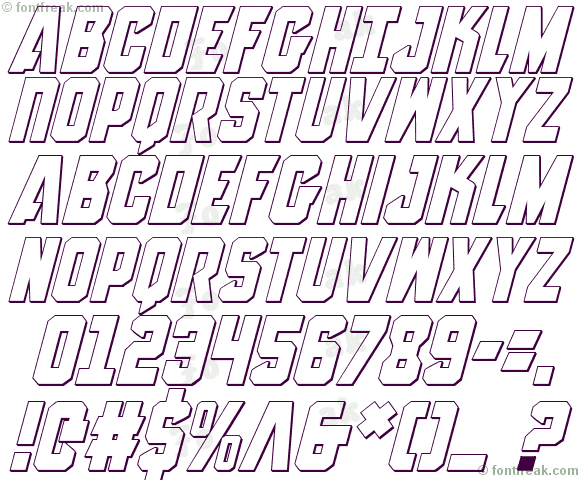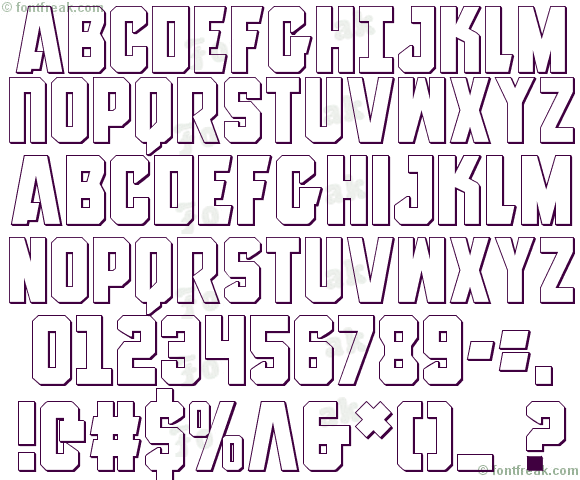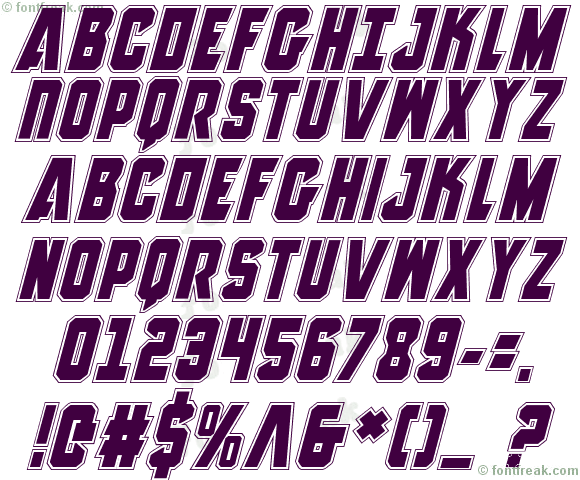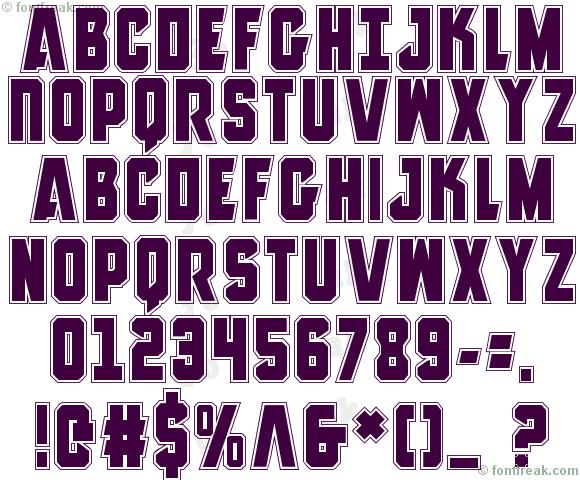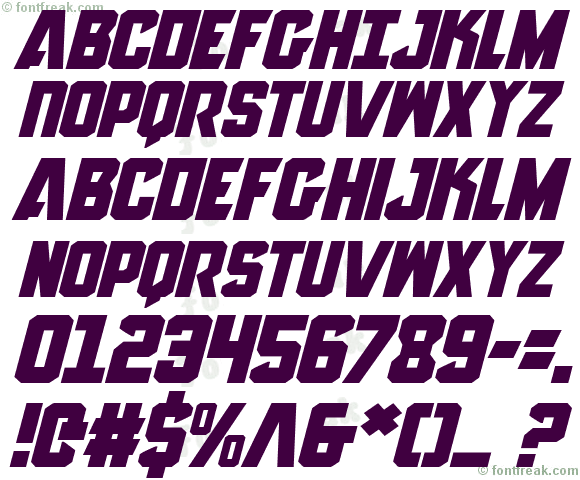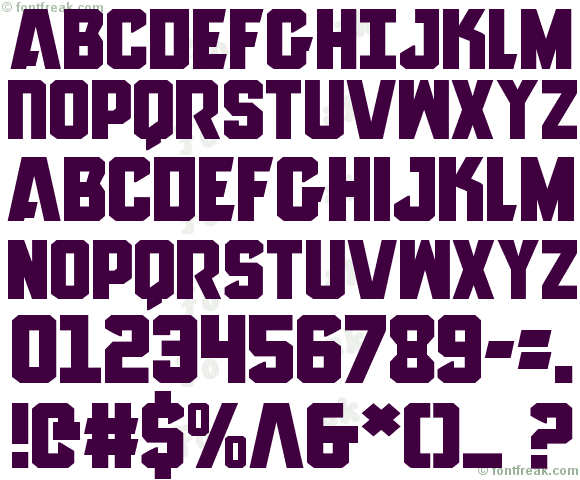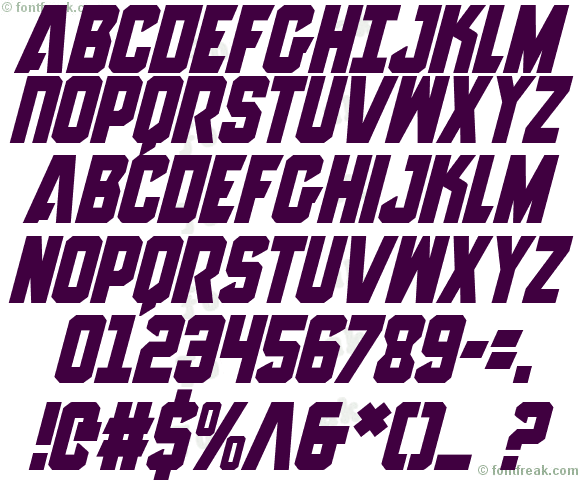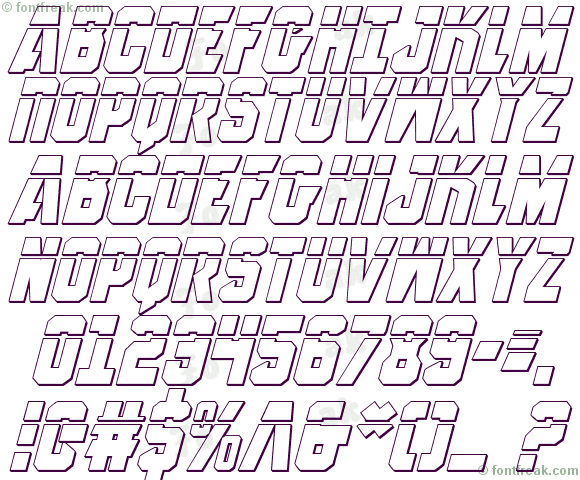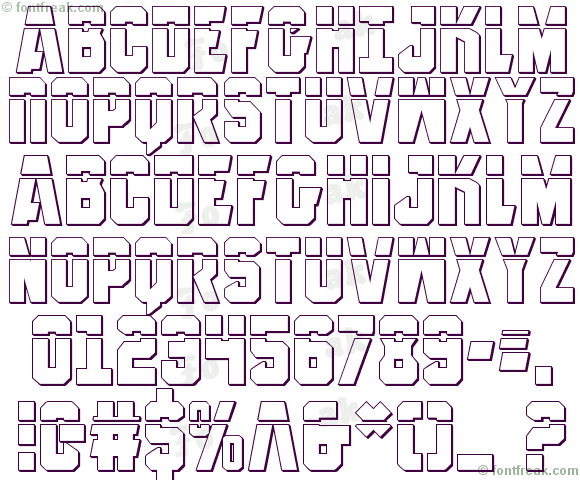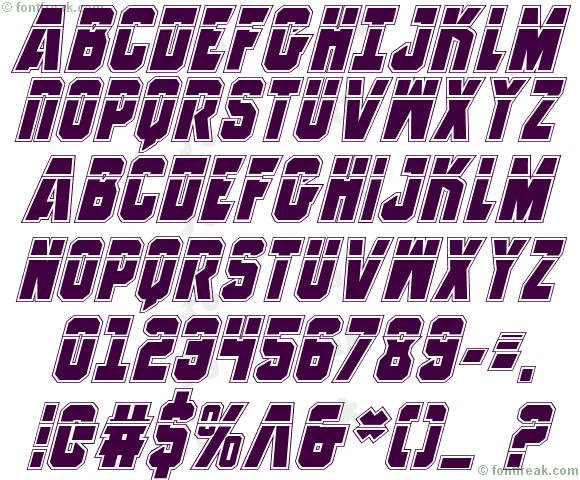
About Antilles
The Antilles font by Iconian Fonts is a striking display typeface that exudes a bold, modern aesthetic. With its three-dimensional appearance and expanded letterforms, this font captures attention effortlessly. Characterized by a uniform stroke weight and minimal contrast, Antilles creates an impactful visual presence that is both versatile and distinctive. The spacious letter spacing enhances readability, making it suitable for a variety of applications.
Antilles is ideal for a range of creative projects. It shines in contexts such as movie posters, where its dramatic flair can amplify excitement and draw viewers in. Additionally, its bold nature makes it a fitting choice for restaurant menus, helping to highlight signature dishes and captivating diners. Wedding invitations can also benefit from Antilles' unique style, adding a contemporary touch to special events. Graphic designers will appreciate its adaptability for branding projects, offering a modern edge that stands out in any design portfolio. Small business owners can leverage this font in promotional materials to attract attention and convey a sense of professionalism.
What sets the Antilles font apart is its captivating combination of boldness and flexibility. Its distinctive three-dimensional quality not only makes it visually engaging but also ensures that it remains relevant across various design landscapes. With Antilles font free download readily available, it’s an excellent choice for anyone aiming to elevate their creative work and make a lasting statement.